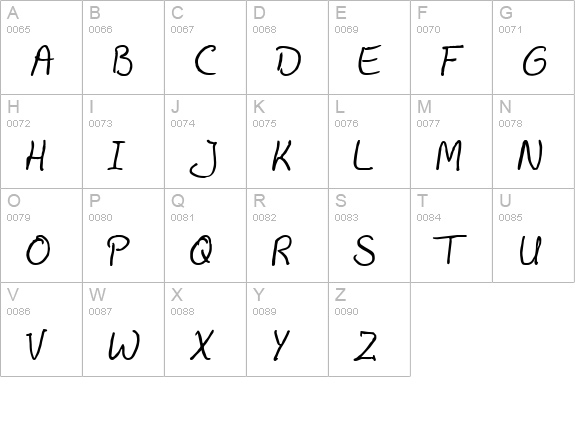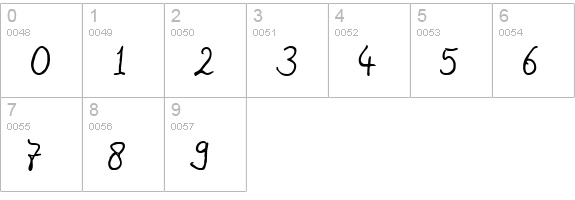
Julius B Thyssen Font Details
Julius B Thyssen font is a modern and elegant typeface that exudes sophistication and style. With its sleek lines and clean design, this font is perfect for adding a touch of class to any project. Whether you're designing a logo, creating a website, or crafting a marketing campaign, Julius B Thyssen font will help your work stand out. The best part? Julius B Thyssen font is completely free to download at FontsMarket.com. Yes, that's right - you can elevate your designs with this stunning font without spending a dime. So why wait? Head over to FontsMarket.com now and take advantage of this amazing offer. Upgrade your projects with Julius B Thyssen font today and watch them come to life with style and sophistication.